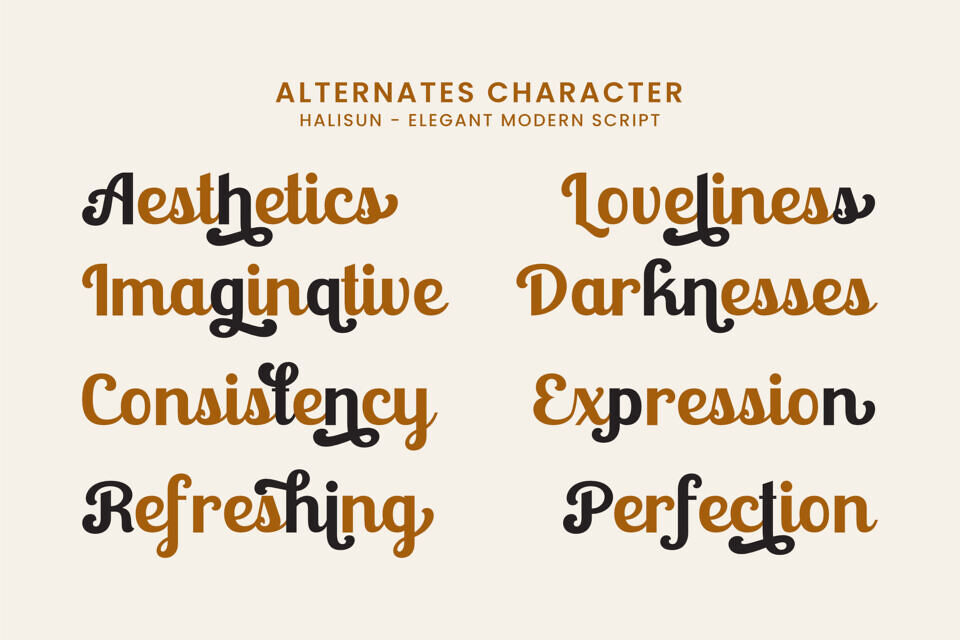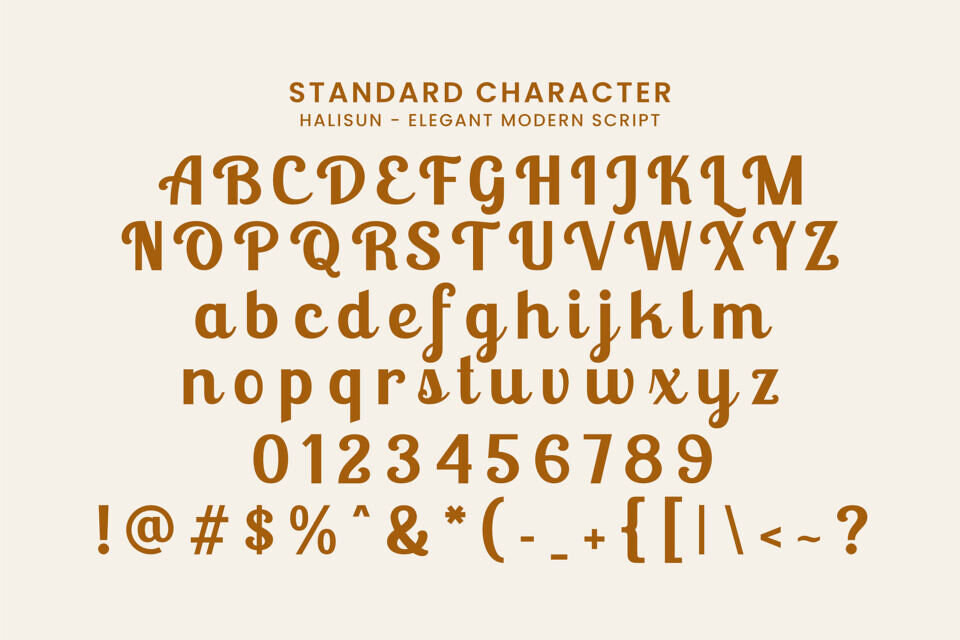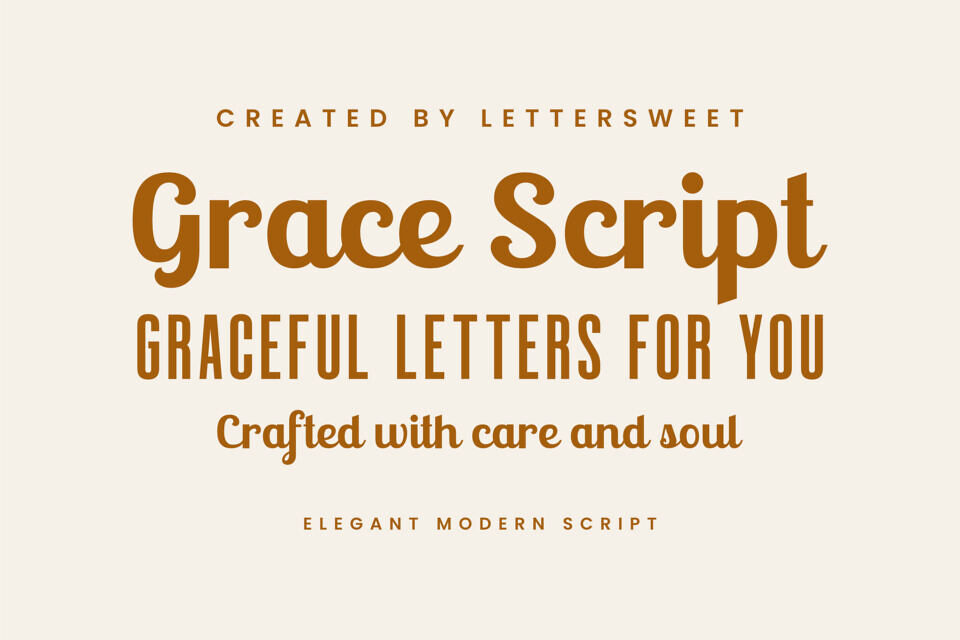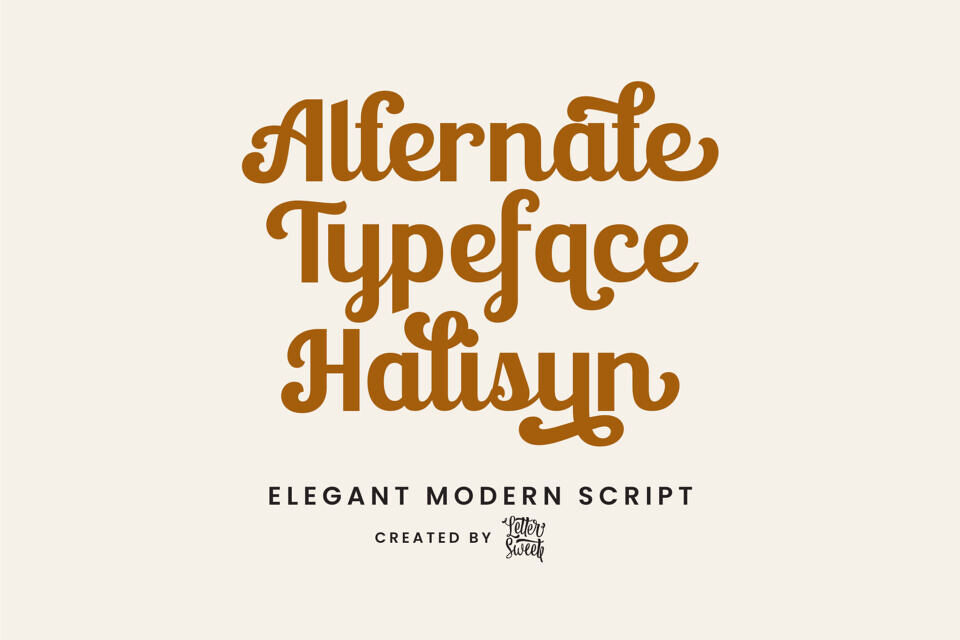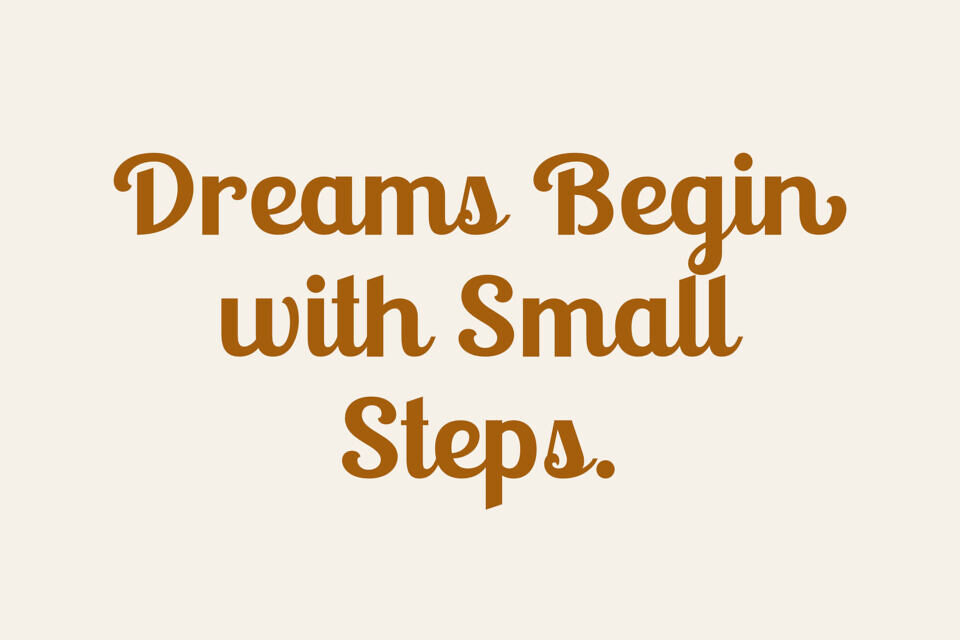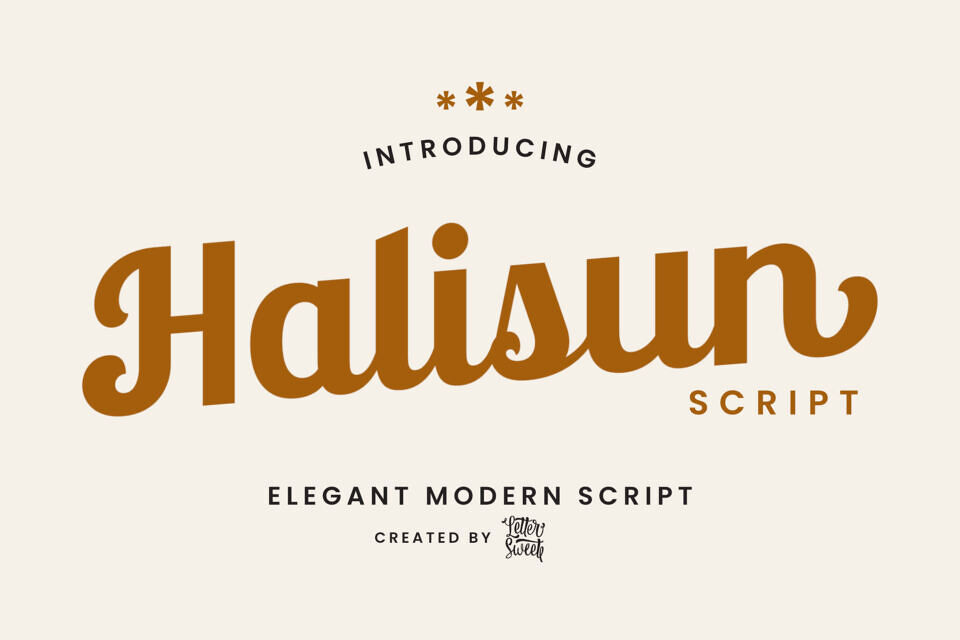
Halisun Font
Halisun Script is an elegant modern script font that blends smooth curves with a stylish vintage touch. Perfect for logos, invitations, packaging, social media, and branding projects, Halisun brings warmth and sophistication to every design. Its clean lines and flowing forms create a timeless look that’s both modern and classic.
Add a touch of charm to your work — from fashion branding to wedding stationery — and make your text stand out with Halisun Script’s graceful personality. Ideal for: logos, posters, invitations, business cards, quotes, and stylish product packaging.